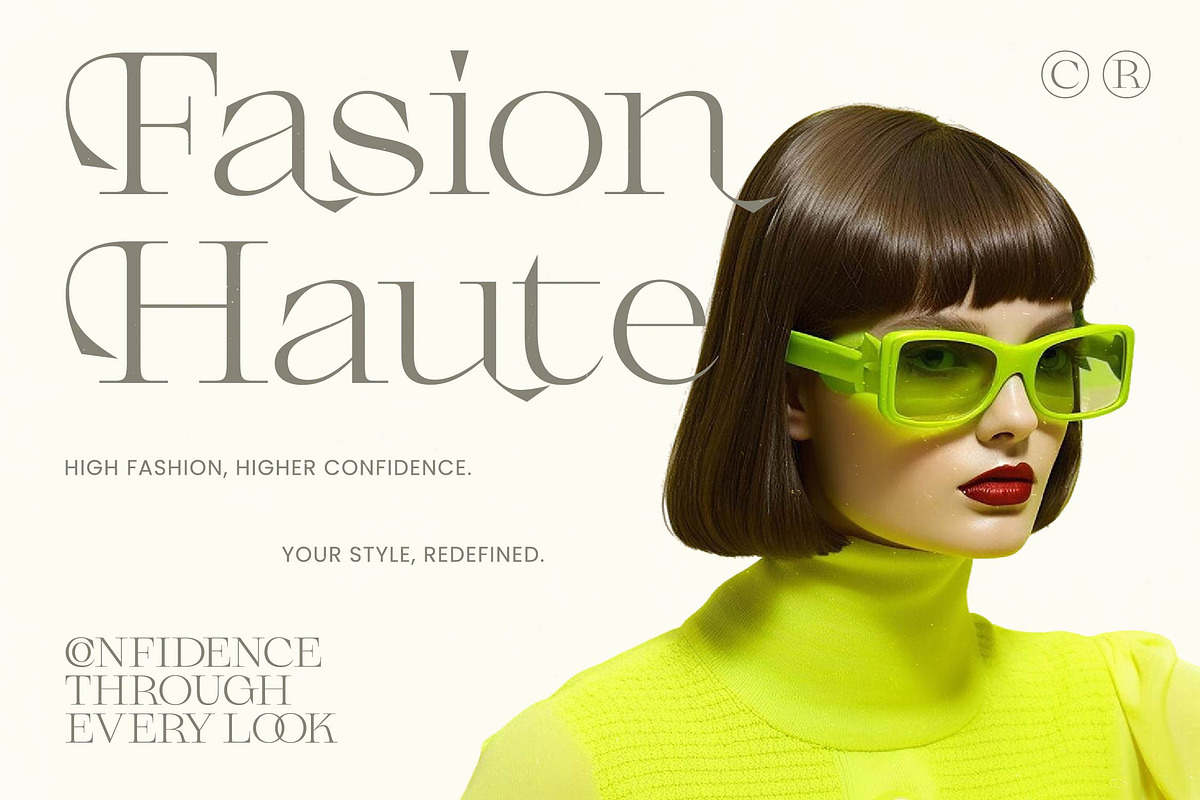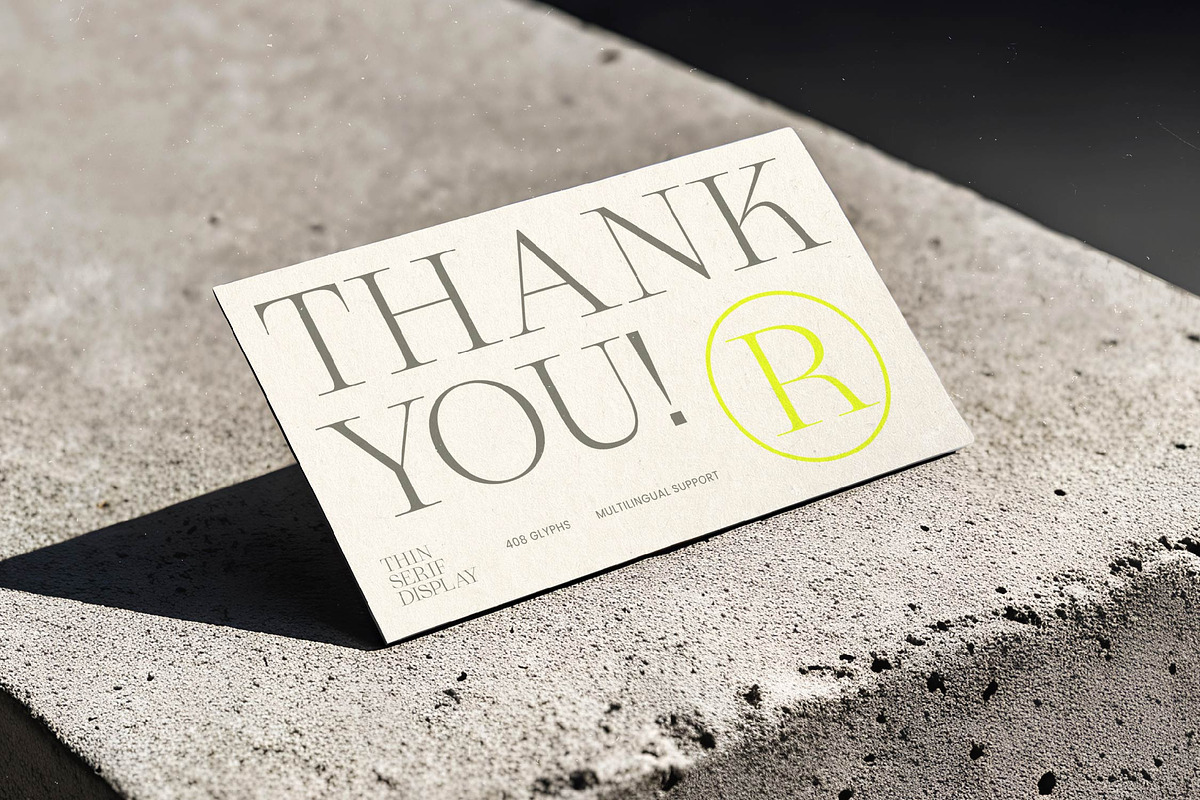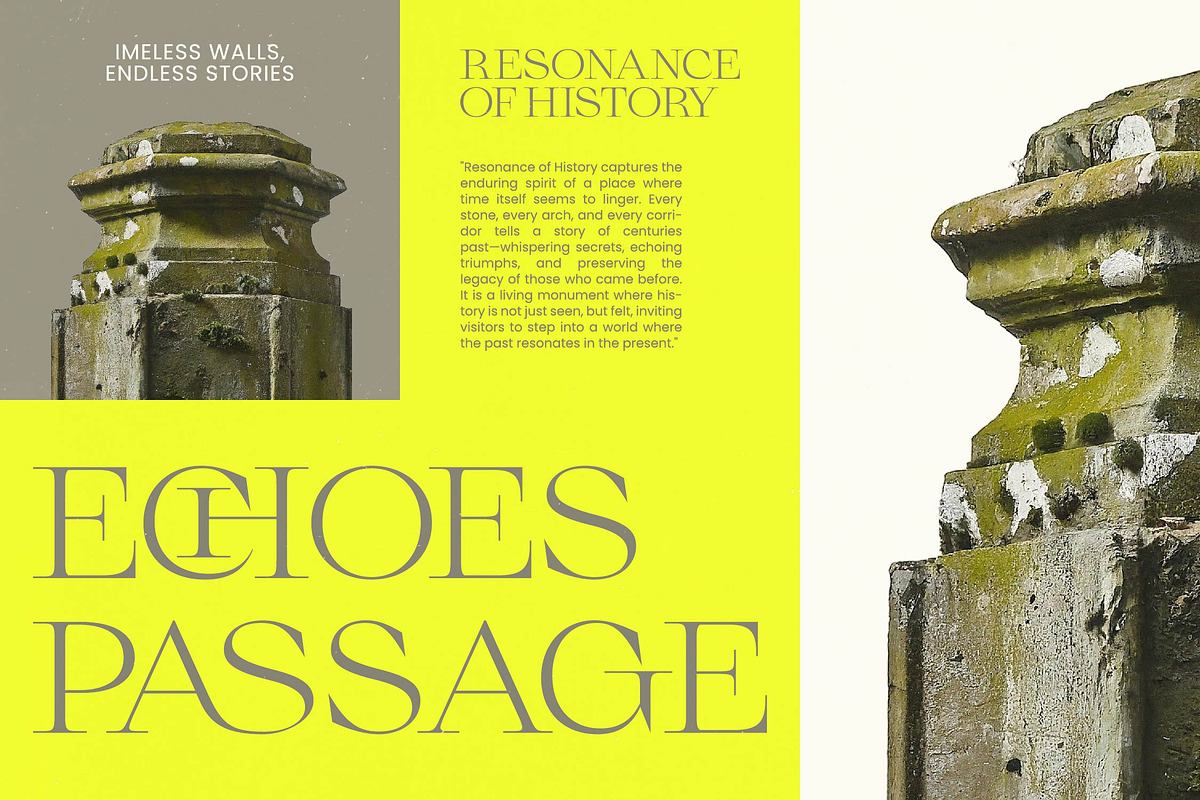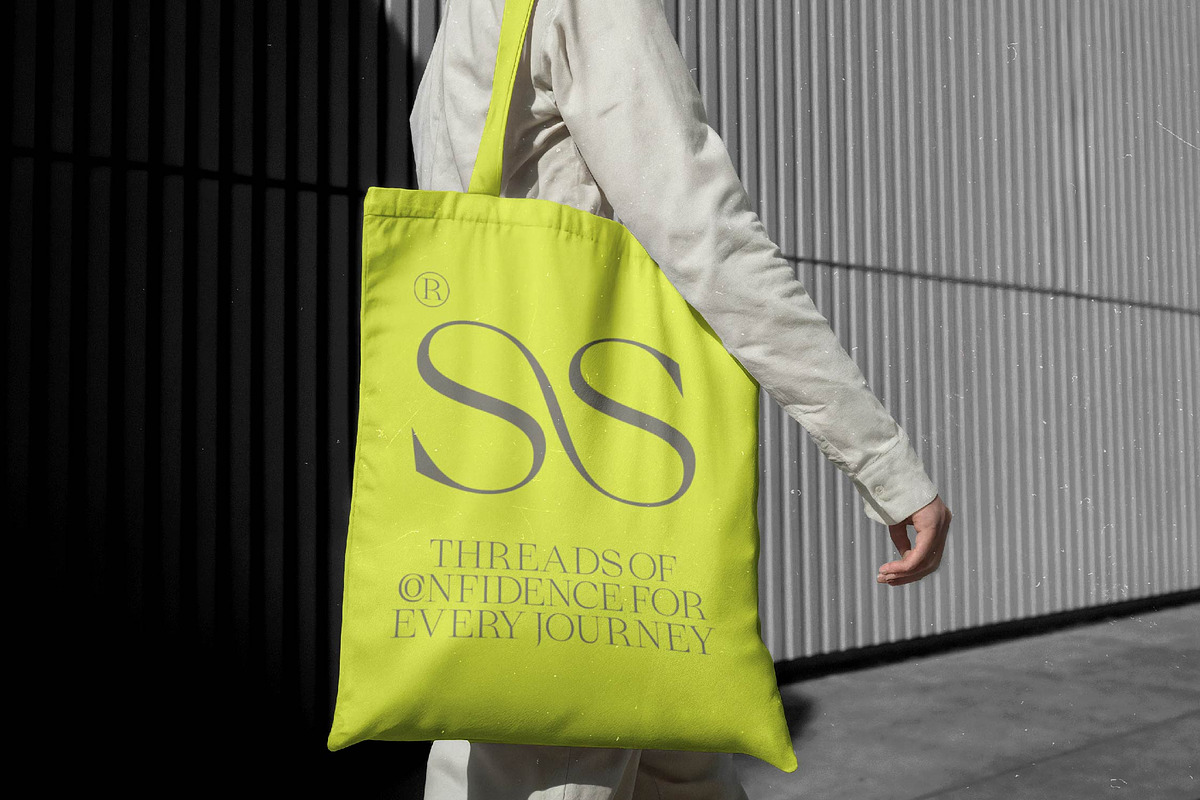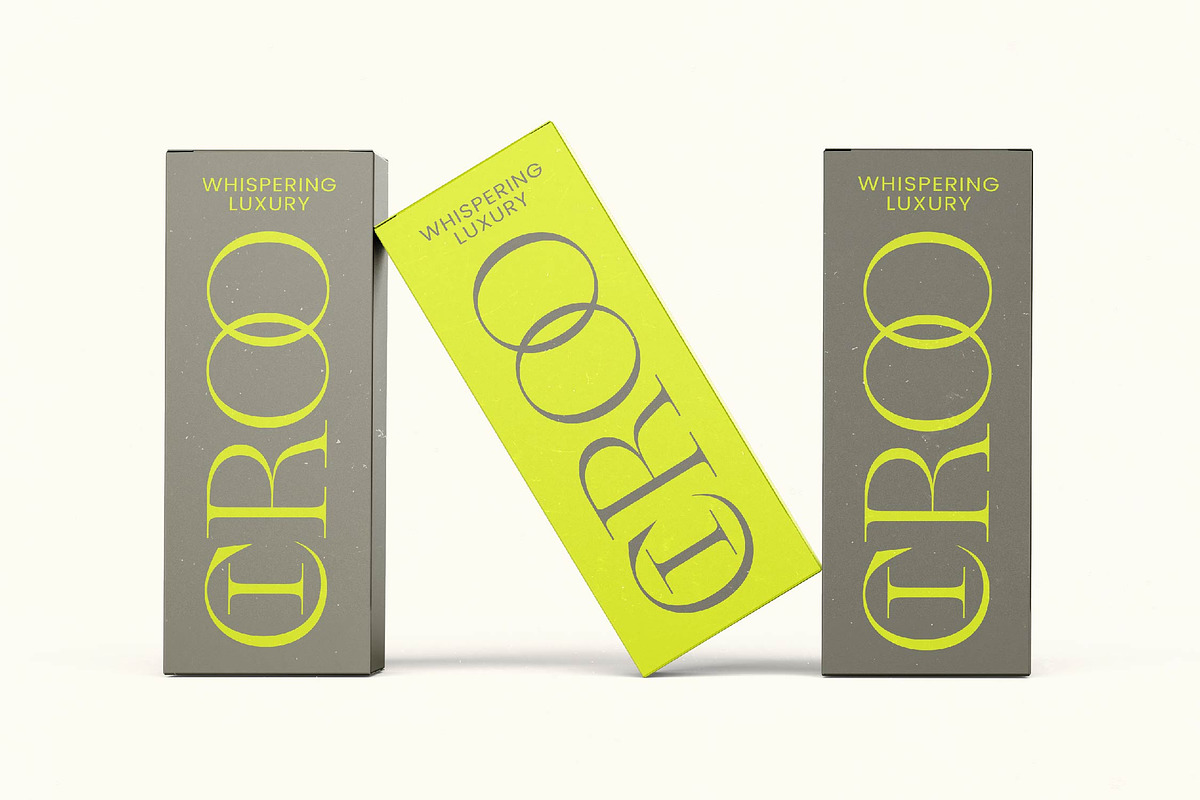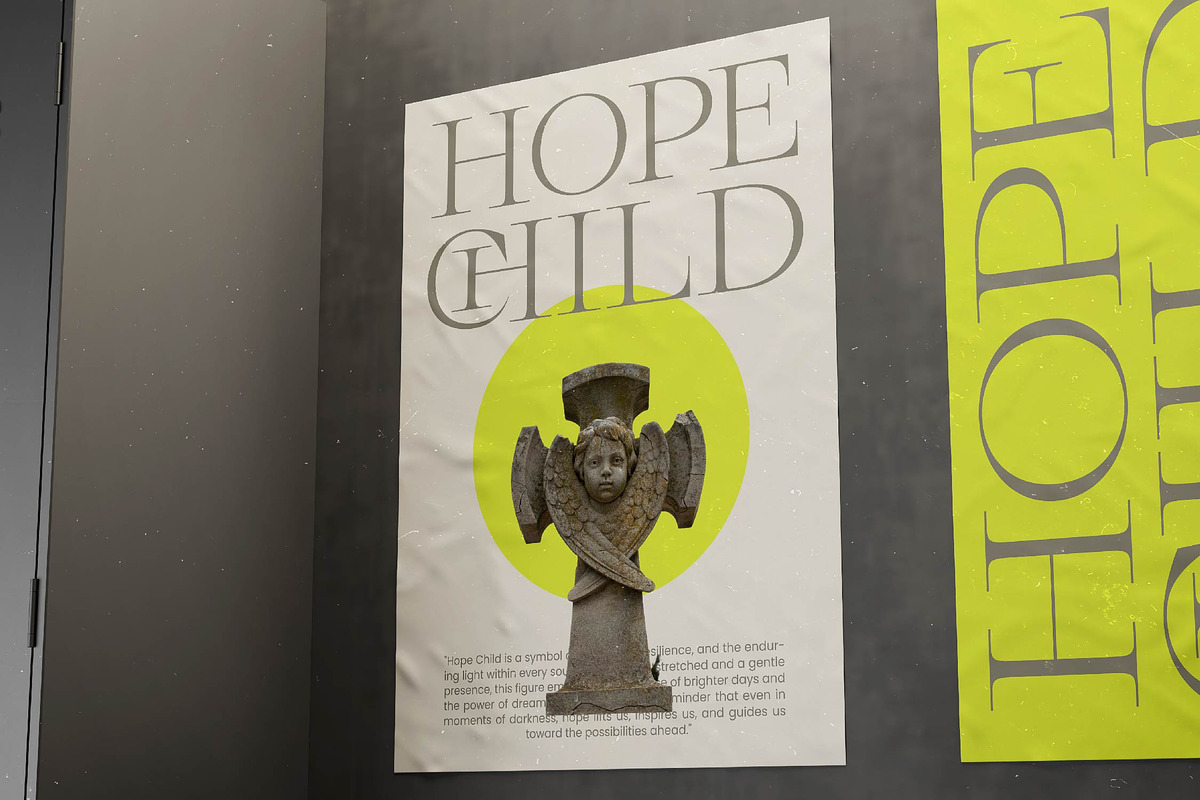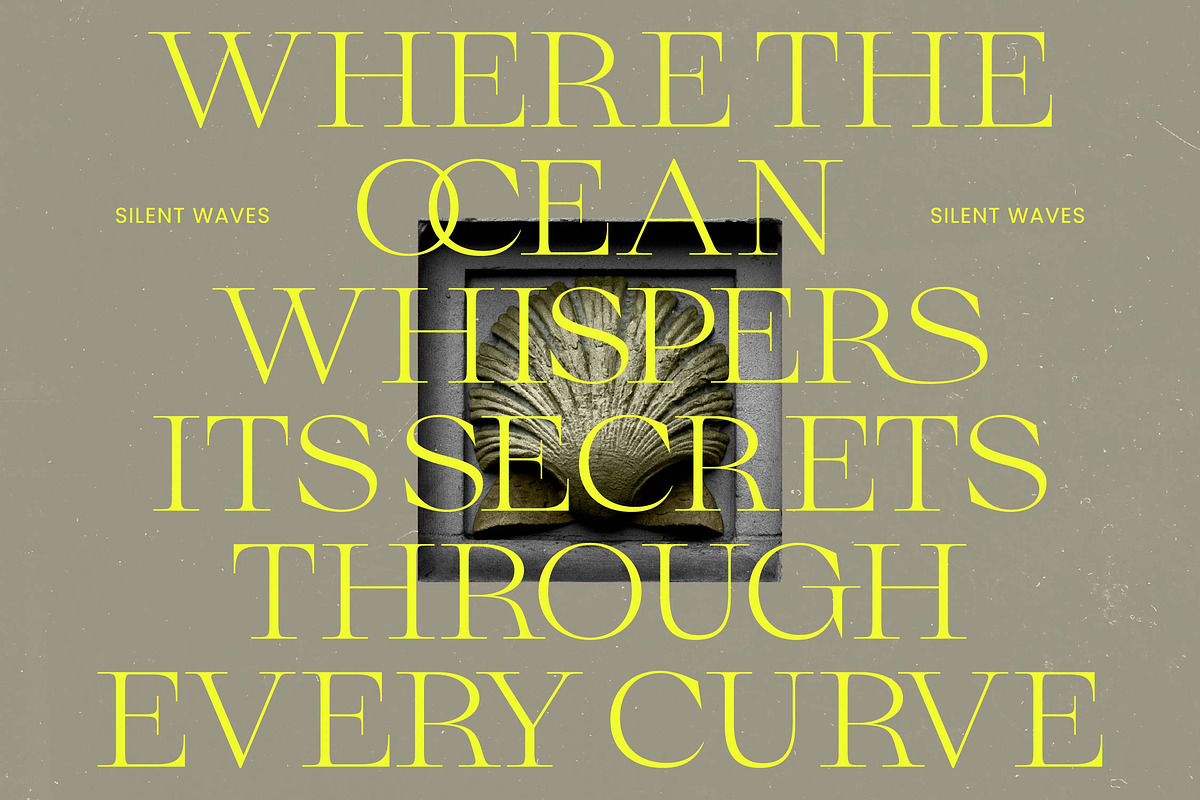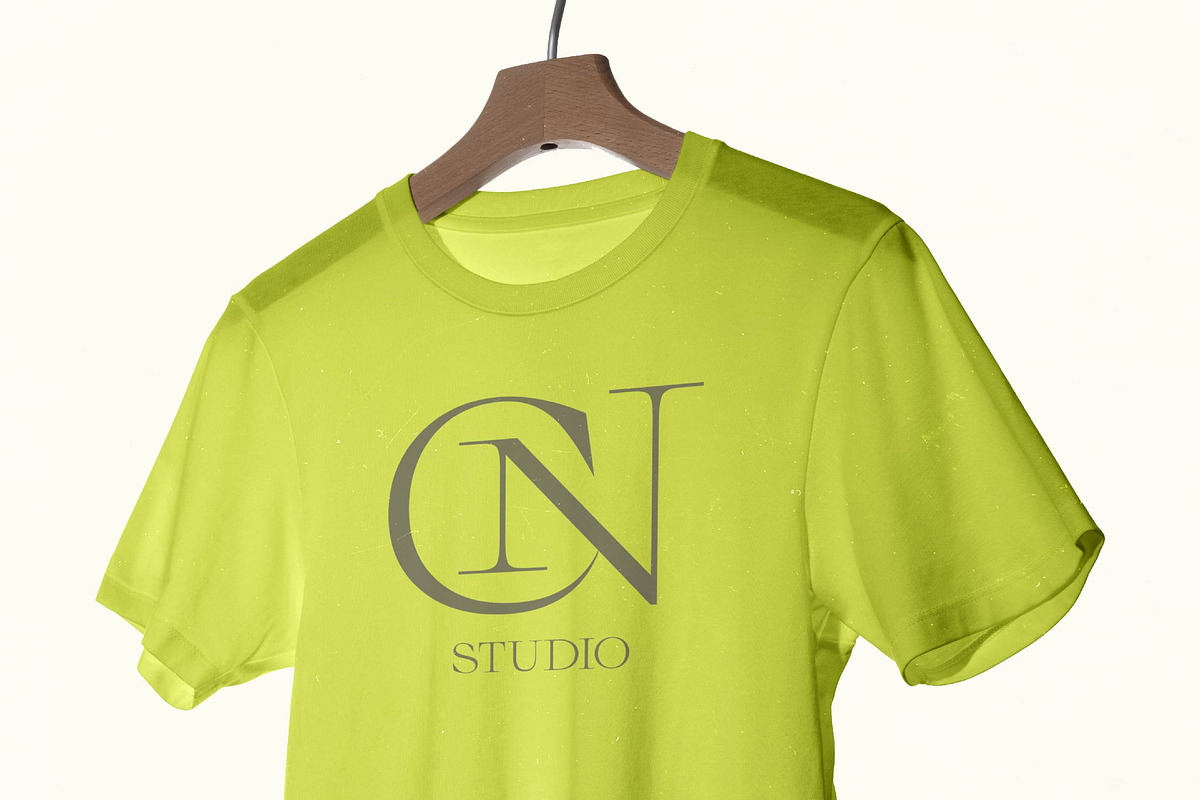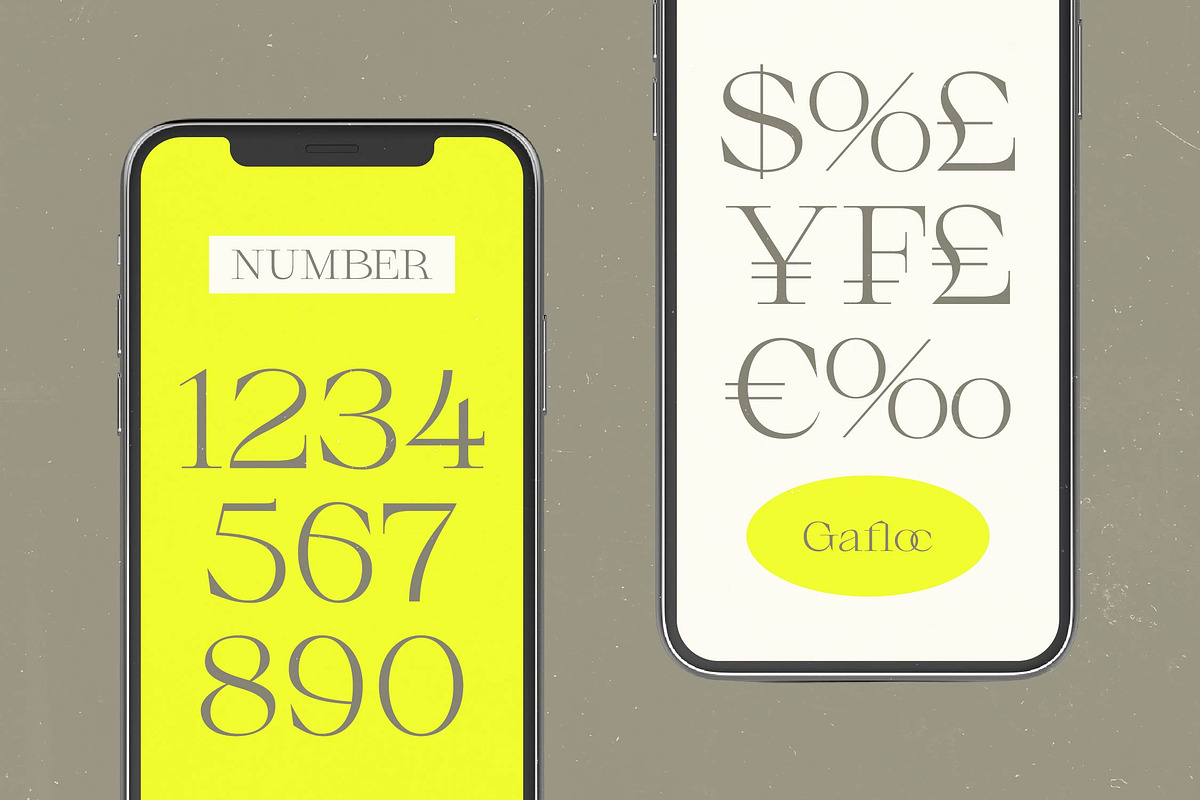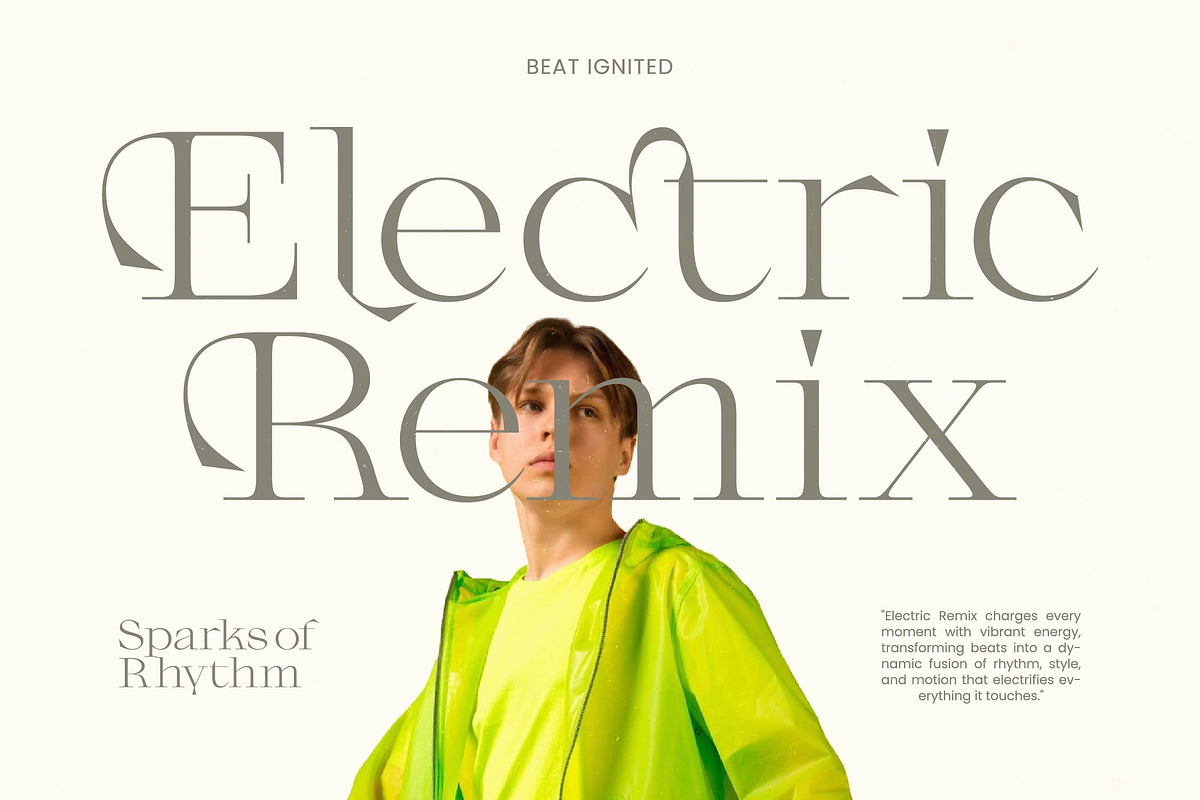
Gafloc Thin Serif Display
Gafloc – Thin Serif Display , Elevate your creative vision with a typeface that embodies pure sophistication and contemporary flair. Gafloc – Thin Serif Display is a masterclass in high-contrast design, offering razor-thin serifs that command attention while maintaining an air of delicate grace. Its sophisticated aesthetics make it an essential asset for designers seeking to convey prestige and modern elegance in every headline or artistic composition.
Precision-engineered for high-end visual communication, this typeface excels in the most demanding creative environments. Gafloc – Thin Serif Display is perfect for luxury branding, high-fashion editorial design, and premium packaging where first impressions are paramount. Whether utilized for minimalist logos or sprawling magazine layouts, it ensures your project radiates a high-end professional finish that resonates with an upscale audience.
Global accessibility meets refined craftsmanship with a robust set of 40 ligatures and 38 alternates that allow for endless customization and unique character pairings. With its extensive multilingual support, Gafloc – Thin Serif Display adapts seamlessly across global markets, making it incredibly versatile for international projects. This versatile functionality ensures that your message remains clear and stylish, regardless of the linguistic context or geographic reach.